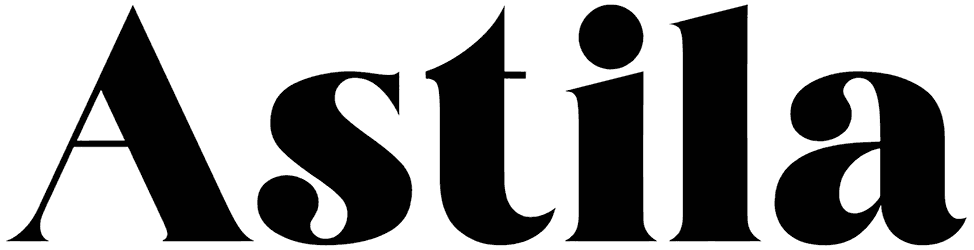
Astila Font
Astila is one of RB’s assets, with an A-Z alphabet, doing its best in emphasizing many projects. The ornamental serif end that gives your simple lettering takes up to two minutes to win!
Surely, you will catch the heading of proficient magazines or book titles embellished with this luxury font. If you are aiming to insinuate the right dose of reputation and vibrancy into your configurations, add this serif font to your toolbox